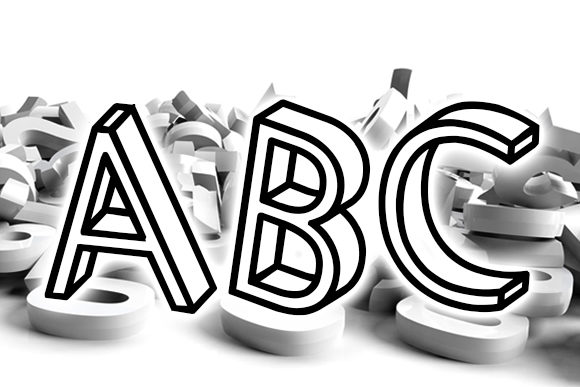
Unlock the Power of Visual Storytelling with the 3D Letters Font
Have you ever stared at a blank canvas, trying to bring your creative vision to life? It’s that moment when inspiration strikes, and the world of possibilities opens up. For designers, this moment is what drives us to push the boundaries of innovation and artistry.
One font that embodies this spirit is the 3D Letters Font. This stunning linear font boasts a 3D comic look that’s sure to captivate audiences. Whether you’re creating a poster, banner, t-shirt, or flyer, the 3D Letters Font is the perfect tool to elevate your design and leave a lasting impression.
As a designer, you know the importance of choosing the right font to convey your message. The 3D Letters Font is a valuable addition to any design toolkit, offering a unique visual style that sets your work apart from the rest.
Key Features of 3D Letters Font
- Unique 3D Effect: This font features a distinctive 3D appearance, giving it a realistic and eye-catching look.
Designer Review: 3D Letters Font
Overall, I’d say the 3D Letters Font has its moments, but it’s not without its flaws. Let’s start with the good stuff:
- ✨ The font is quite bold and eye-catching, which can be great for grabbing attention.
- ✨ The 3D effect adds a nice touch of depth to the text, which can be useful for titles and headings.
- ✨ The font is available in a wide range of languages, making it a good option for global branding.
However, there are some limitations that might hold you back:
- ⚠️ The font can be quite over-the-top, making it hard to use in situations where subtlety is key.
- ⚠️ The 3D effect can be distracting, especially if used extensively throughout a design.
- ⚠️ The font doesn’t lend itself well to long blocks of text, making it better suited for titles and short quotes.
Overall, I’d say the 3D Letters Font is a good option for designers who want to add some extra flair to their designs. However, it’s not a font that I’d recommend using for every project – use it sparingly to avoid overwhelming your audience.
Some popular use cases for 3D Letters Font include:
- Creating eye-catching titles and headings
- Adding a unique touch to presentations and reports
- Designing custom logos and branding materials
Remember to experiment with different 3D effects and settings to achieve the desired look for your design.
Alternatives to 3D Letters Font for Designers
Playfair Display is a elegant, high-end serif font that can be used to create a luxurious and sophisticated look. It’s ideal for use in invitations, wedding designs, and high-end branding.
Comparison to 3D Letters Font: While 3D Letters Font adds a 3D effect to text, Playfair Display focuses on elegant typography. Playfair Display is more suitable for formal and high-end designs, whereas 3D Letters Font is better for casual and playful designs.
Pacifico is a beautiful, modern script font that can be used to create a relaxing and beachy vibe. It’s ideal for use in summer designs, beach-themed branding, and wedding invitations.